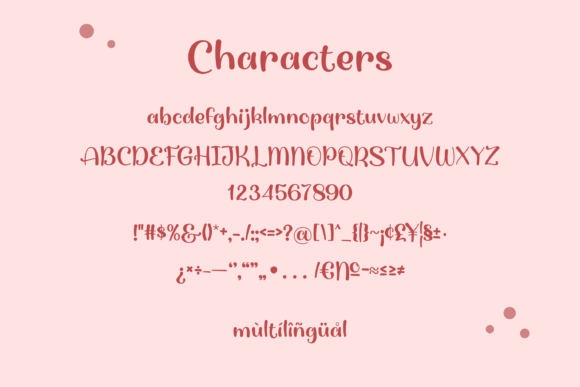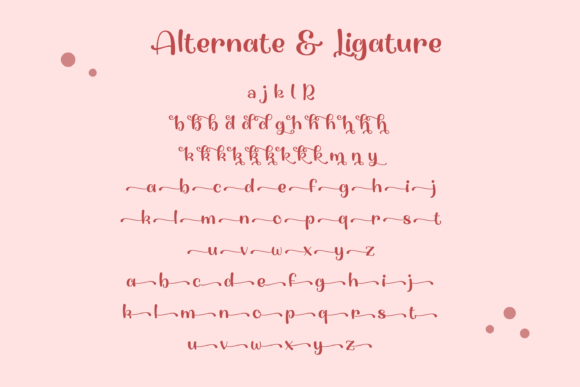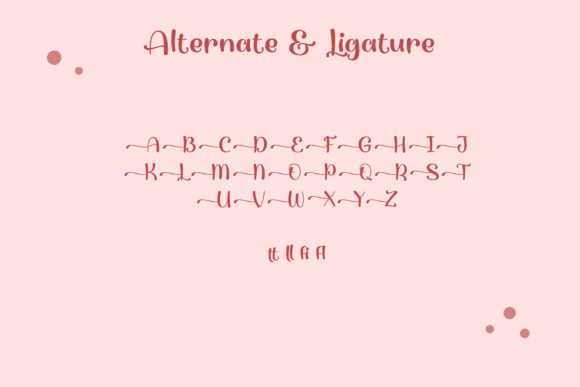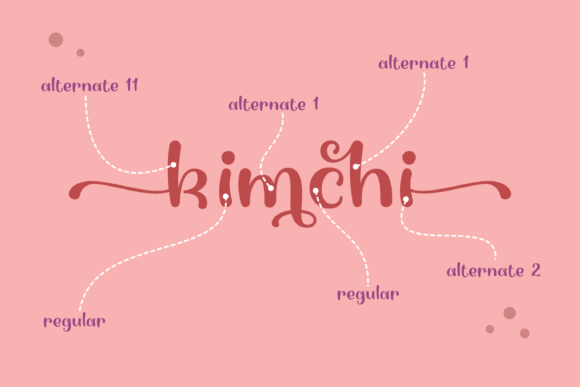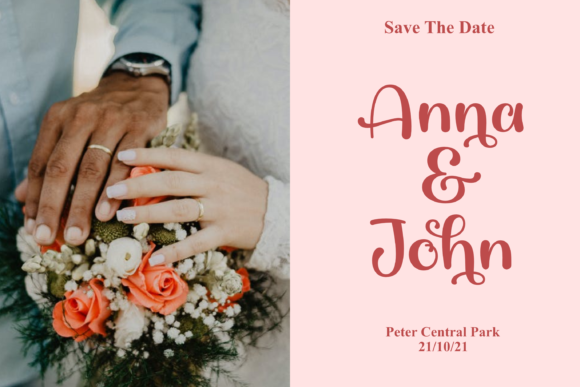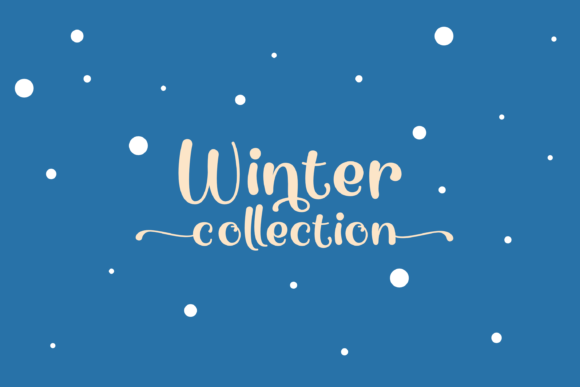
Introducing Enoki Font: The Epitome of Elegance and Sophistication
In the realm of typography, few fonts manage to strike a balance between classic elegance and modern flair. Enoki Font, however, is a shining exception. This exquisite handwritten font is meticulously crafted to capture the essence of calligraphic artistry while exuding a contemporary and fresh vibe. Whether you’re a designer, crafter, or simply an aficionado of beautiful typography, Enoki Font is poised to become your new favorite.
The Allure of Enoki Font
Enoki Font’s design is rooted in the rich tradition of calligraphy, yet it boldly steps into the modern era with its clean lines, fluid strokes, and harmonious letterforms. This font is not just a collection of characters; it’s an experience. It’s an invitation to elevate your projects, to add a touch of sophistication, and to leave a lasting impression on your audience. With Enoki Font, the possibilities are endless, and the creative potential is limitless.
Key Features of Enoki Font
- Handwritten Elegance: Enoki Font boasts a beautiful, handwritten aesthetic that adds a personal touch to any project.
- Classy Calligraphic Influences: It masterfully incorporates calligraphic elements, providing a sense of luxury and refinement.
- Contemporary and Fresh: Despite its classic roots, Enoki Font feels modern and current, making it versatile for a wide range of applications.
- Easy to Read: The font’s clarity and legibility ensure that your message is conveyed with precision and style.
- Highly Versatile: Suitable for various projects, including branding, packaging, stationery, and digital media.
Applications of Enoki Font
The versatility of Enoki Font makes it an invaluable asset for designers and crafters across various disciplines. Here are some of the many ways you can utilize this stunning font:
- Branding and Logo Design: Create memorable and elegant brand identities that stand out.
- Wedding and Event Stationery: Add a touch of sophistication to invitations, menus, and other event materials.
- Packaging Design: Elevate product packaging with a font that communicates luxury and quality.
- Digital Media: Enhance your website, blog, or social media content with a font that captivates and engages.
- Crafting and DIY Projects: Perfect for crafters who want to add a personal, elegant touch to their creations, such as handmade cards, journals, or art pieces.
Why Choose Enoki Font?
In a sea of fonts, Enoki stands out for its unique blend of tradition and innovation. Here are a few reasons why designers and crafters fall in love with Enoki Font:
- Unique Aesthetic: Its distinctive look sets it apart from more generic fonts, ensuring your projects have a unique edge.
- Time-Saving: With its excellent legibility and versatility, Enoki Font can significantly streamline your design process.
- Emotional Connection: The font’s elegance and charm can help create an emotional connection with your audience, making your message more impactful.
Enoki Font is more than just a typeface; it’s a design statement. It’s perfect for those who appreciate the beauty of handwritten typography and seek to bring a level of sophistication to their work. Whether you’re working on a high-end brand campaign, a personal craft project, or anything in between, Enoki Font is sure to exceed your expectations. Fall in love with Enoki, and watch your projects ascend to the highest levels of creativity and elegance.